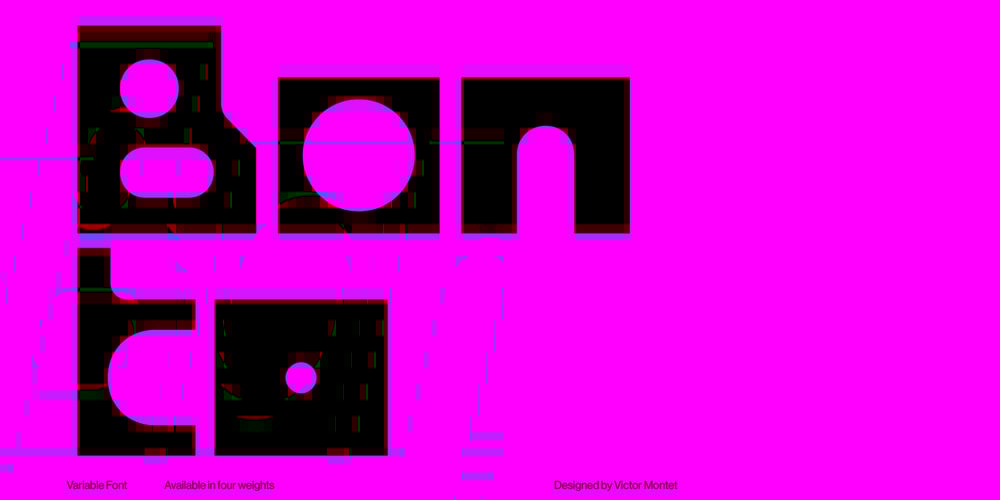
Bonto VF Font Family was designed by Victor Montet and published by Blaze Type. Bonto VF contains 1 styles and family package options. Built from a simple geometric formal repertoire, Bonto is an expressive display typeface that comes in four styles. Directly inspired by our childhood games, the idea of this typeface was to create the most expressive typeface with the most simple shapes. Like lego or puzzle games, the letters come together in a contrasting combination of right angles and roundness. Bonto is designed to encourage play and experimentation through typographic composition. Several alternative glyphs can help the designer find the right combination. The alternative glyphs “e”, “s” and “z” behave like descenders passing under the baseline, allowing for variations in the reading rhythm. In its black style, Bonto can be similar to a domino game, while the regular brings out the contrast of the round counter-forms. Bonto is best used large and playful, perfect for creating impactful and user-friendly designs